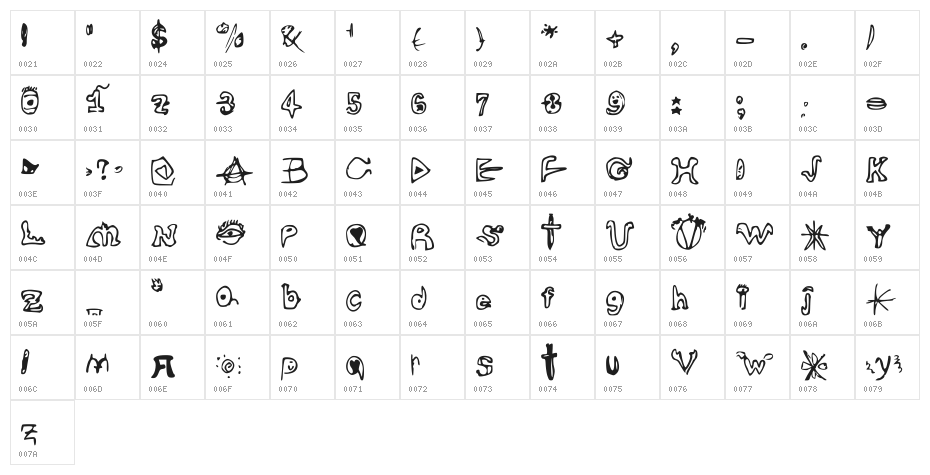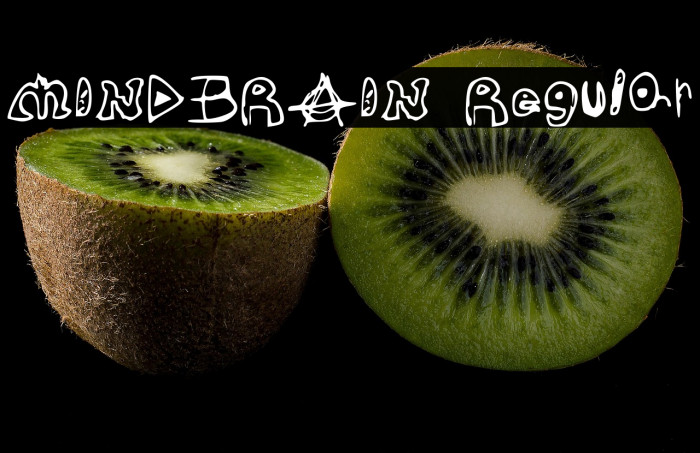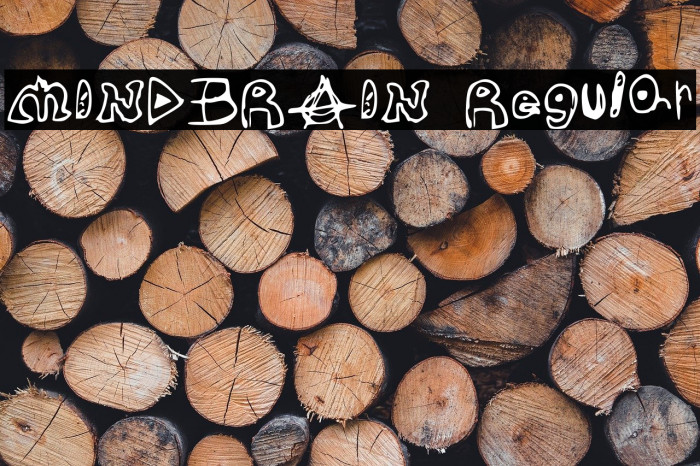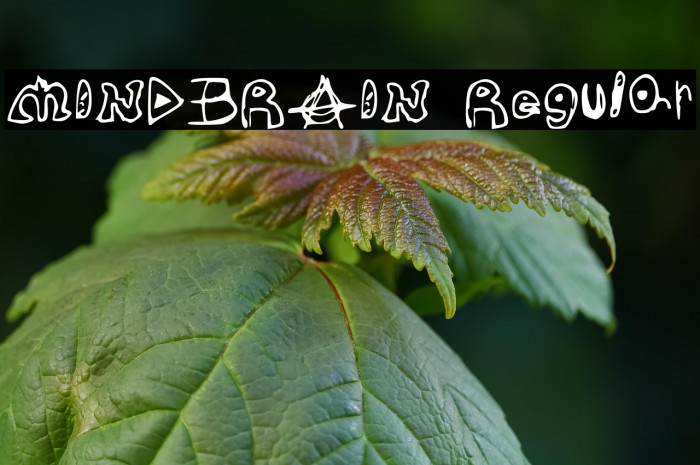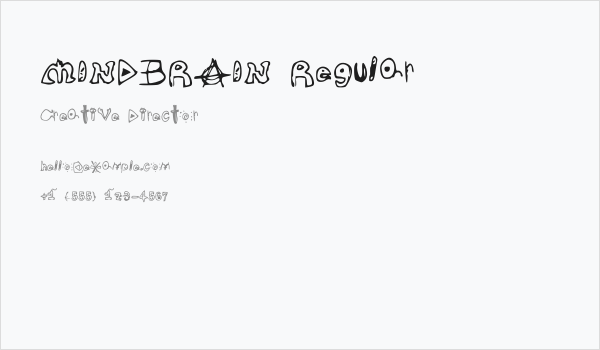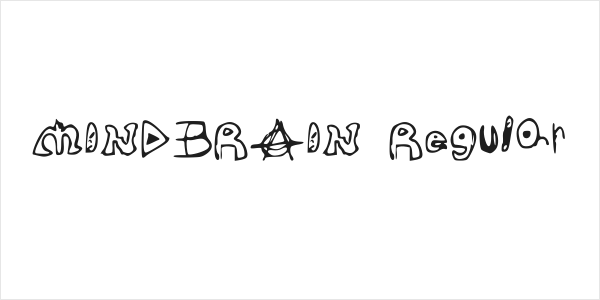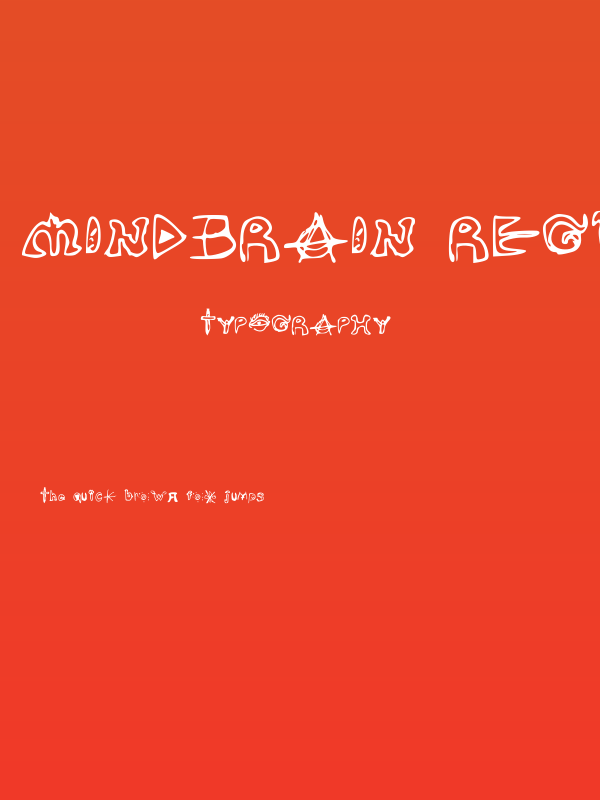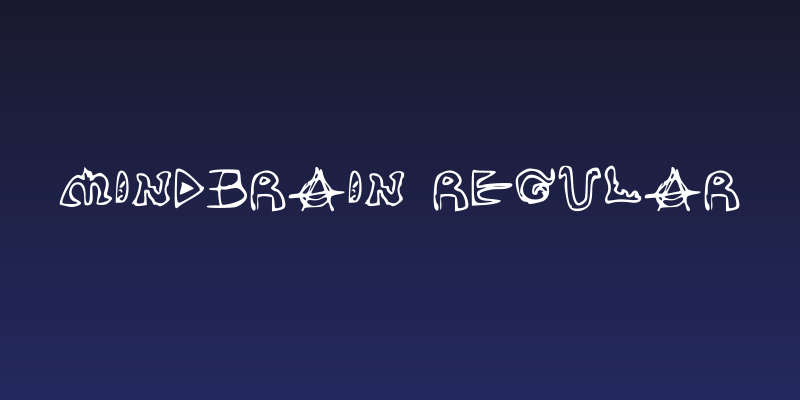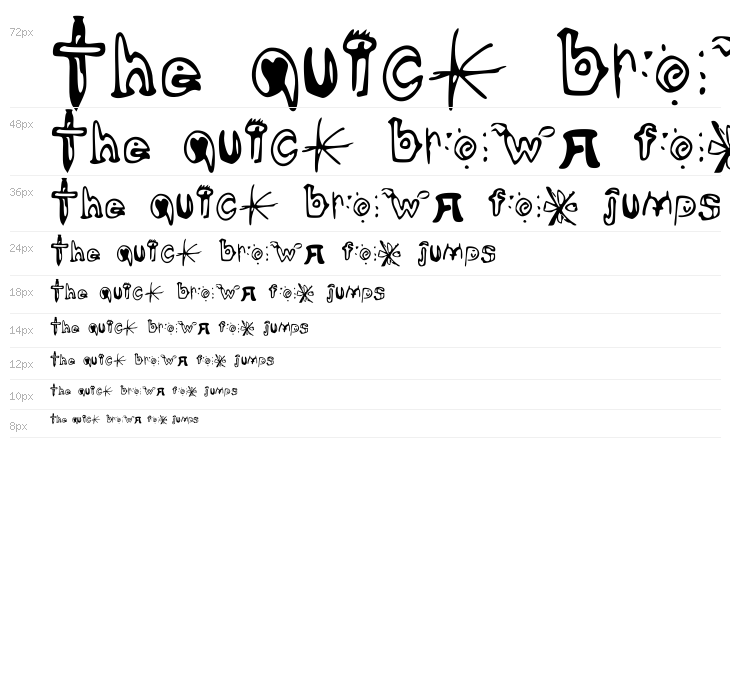
MINDBRAIN Regular Font
MINDBRAIN Regular Description
This font features a highly decorative and artistic style, with each character uniquely designed to incorporate playful and abstract elements. The uppercase letters are bold and attention-grabbing, often incorporating shapes and lines that extend beyond the typical letterform. The lowercase letters maintain a whimsical and creative appearance, with varying stroke widths and unexpected embellishments. Numbers and special characters follow the same artistic theme, making the font suitable for projects that require a distinctive and unconventional look.
| Proposed Projects | Ideal for creative projects such as posters, album covers, children's books, and artistic branding. |